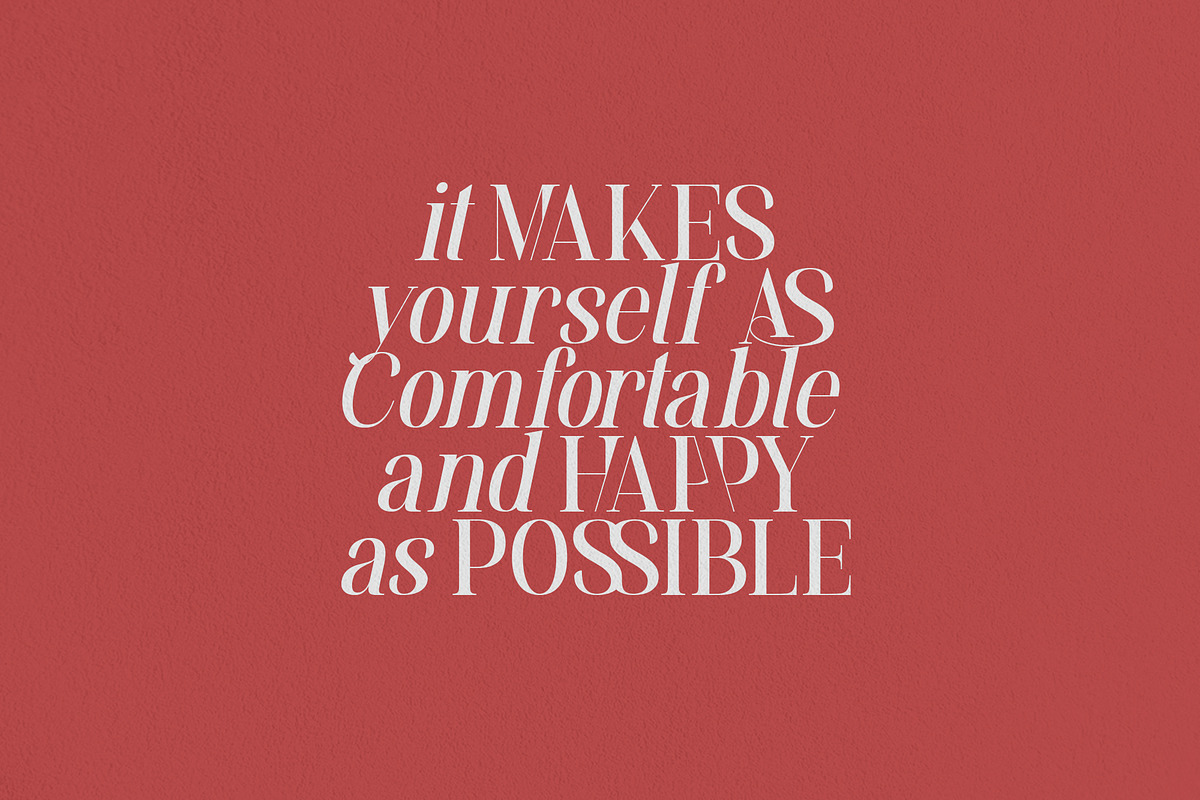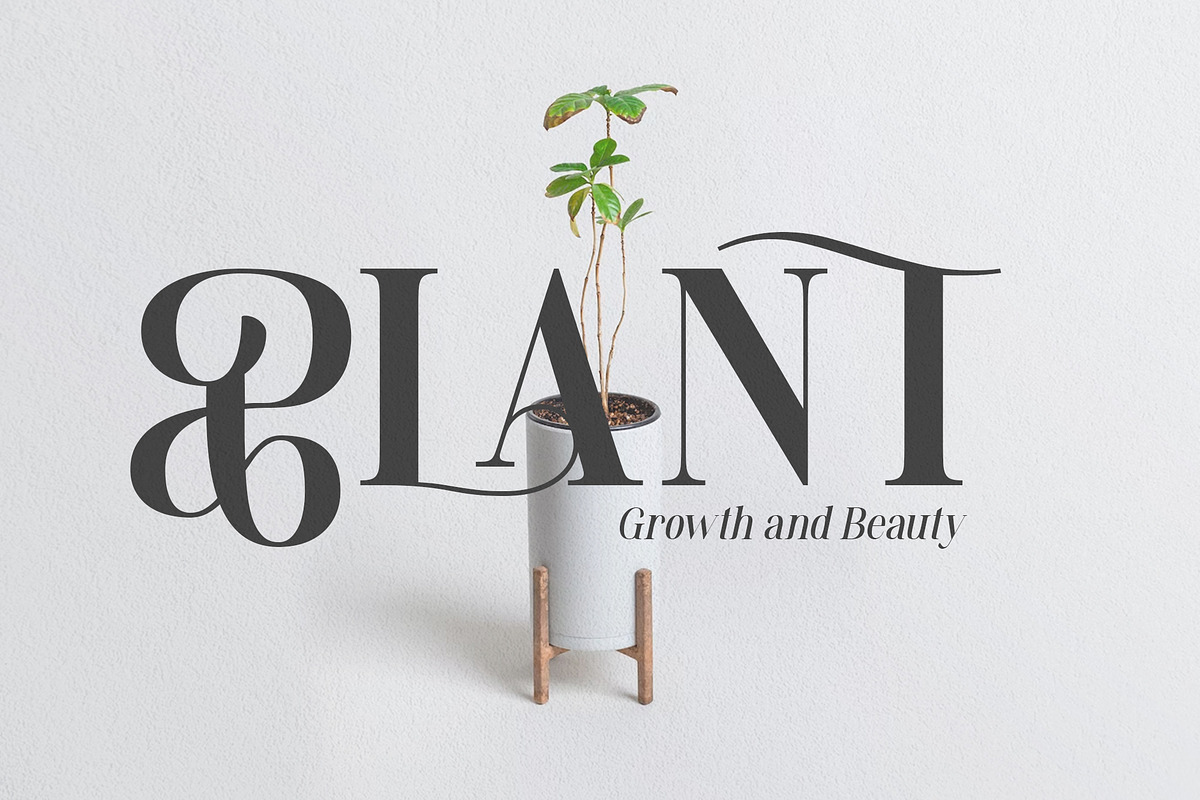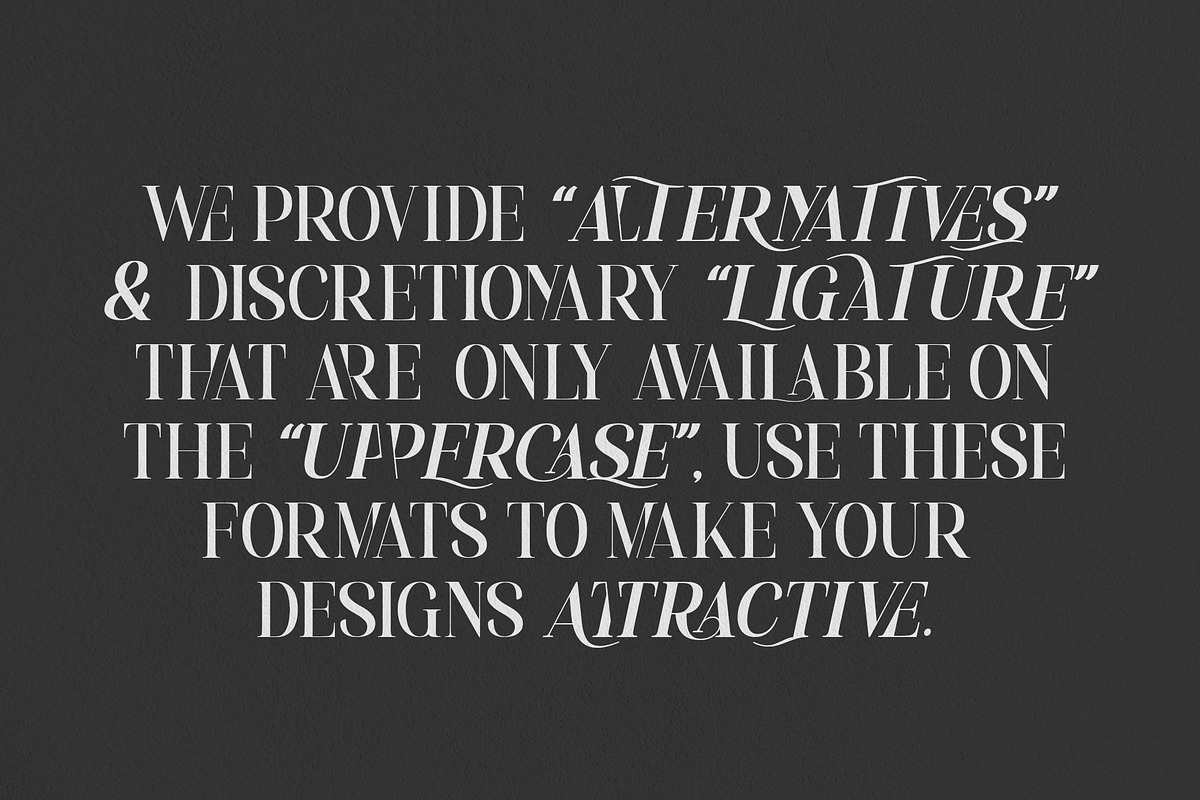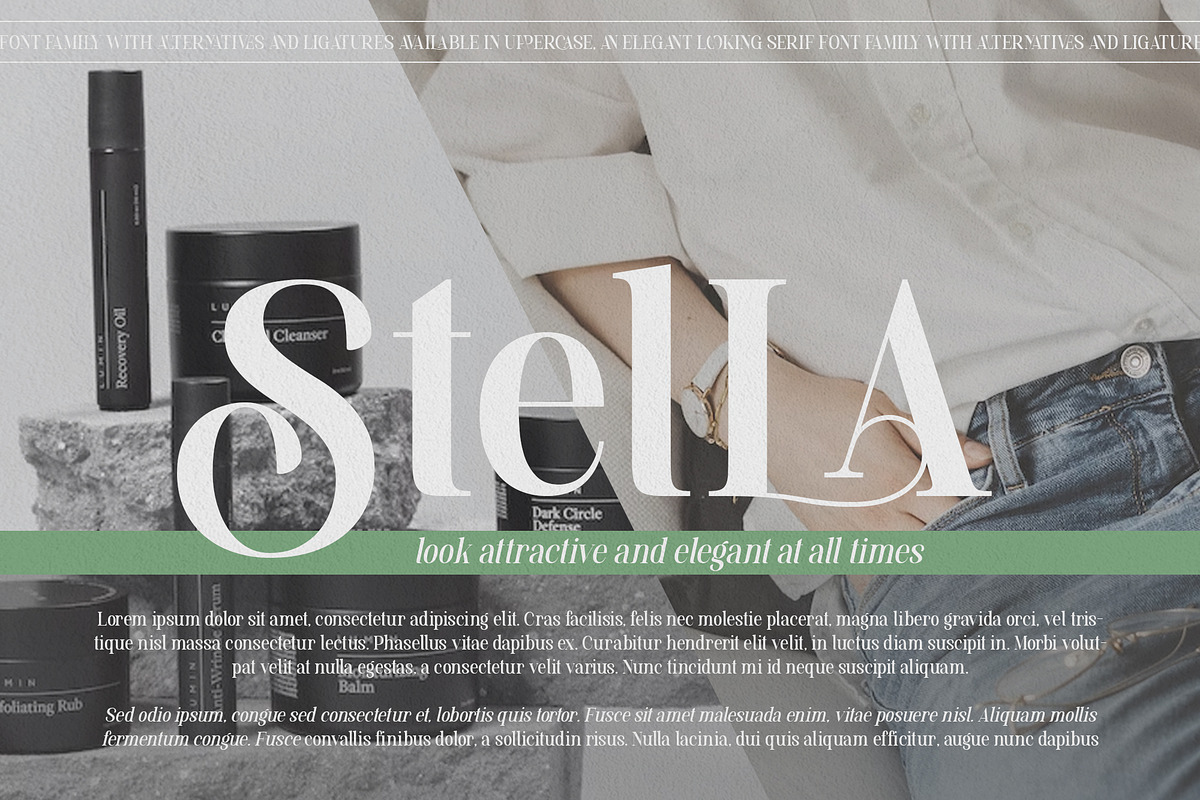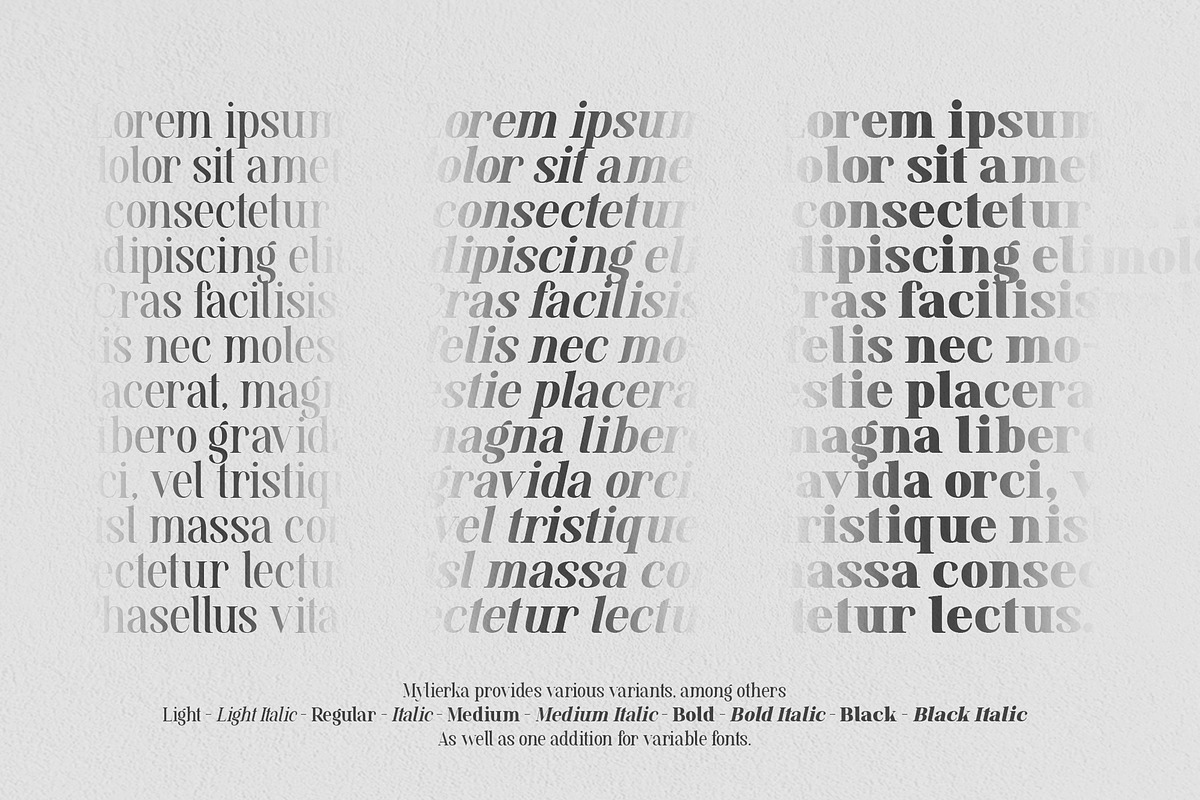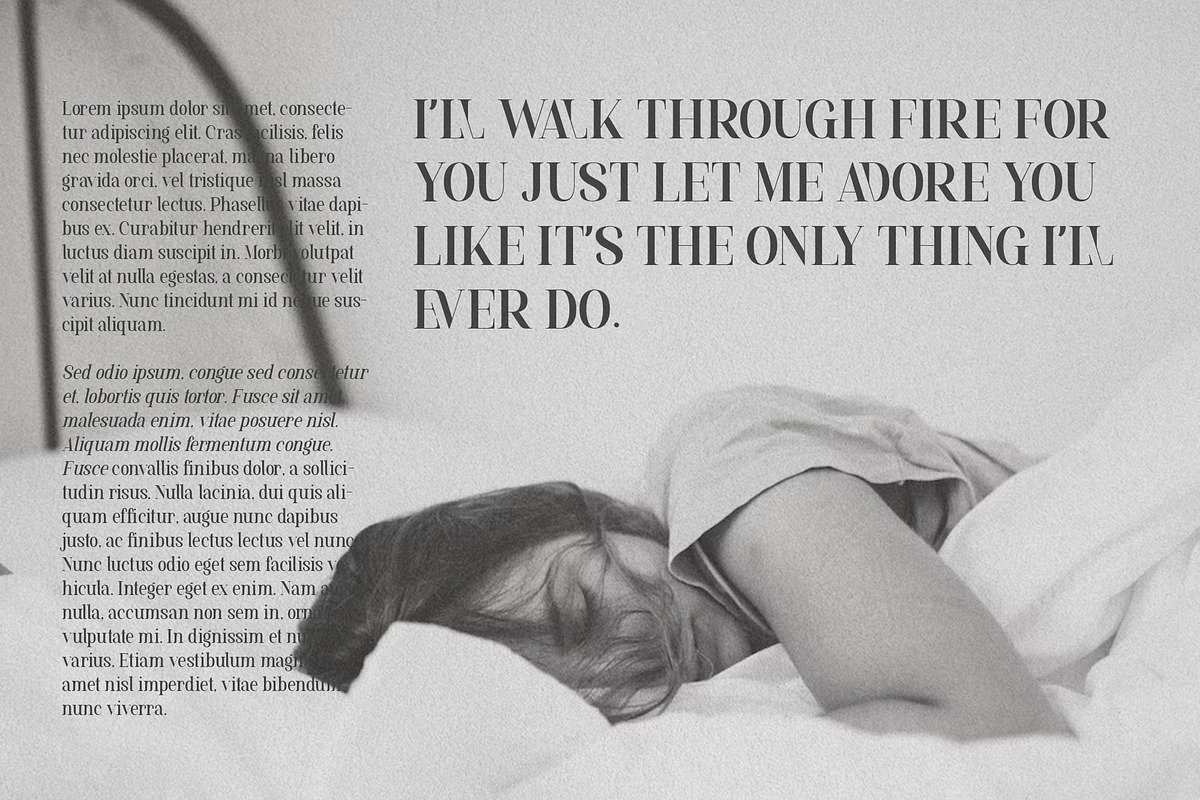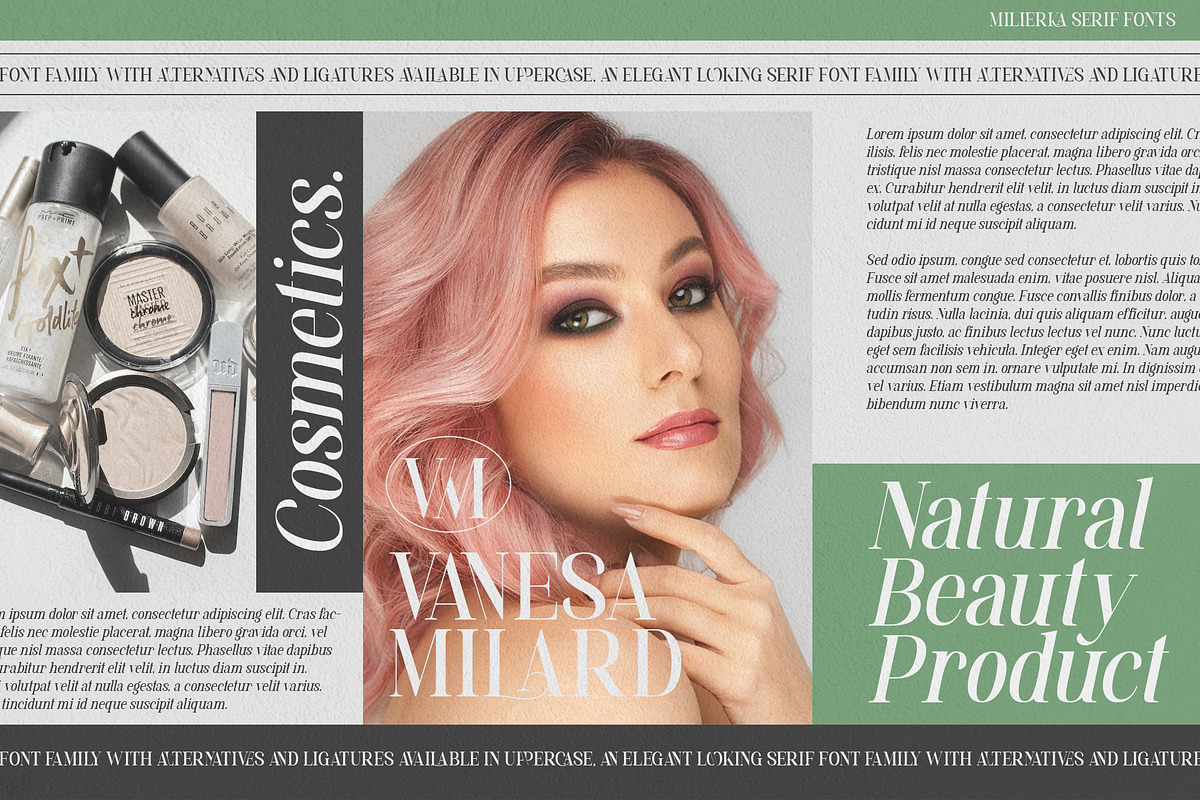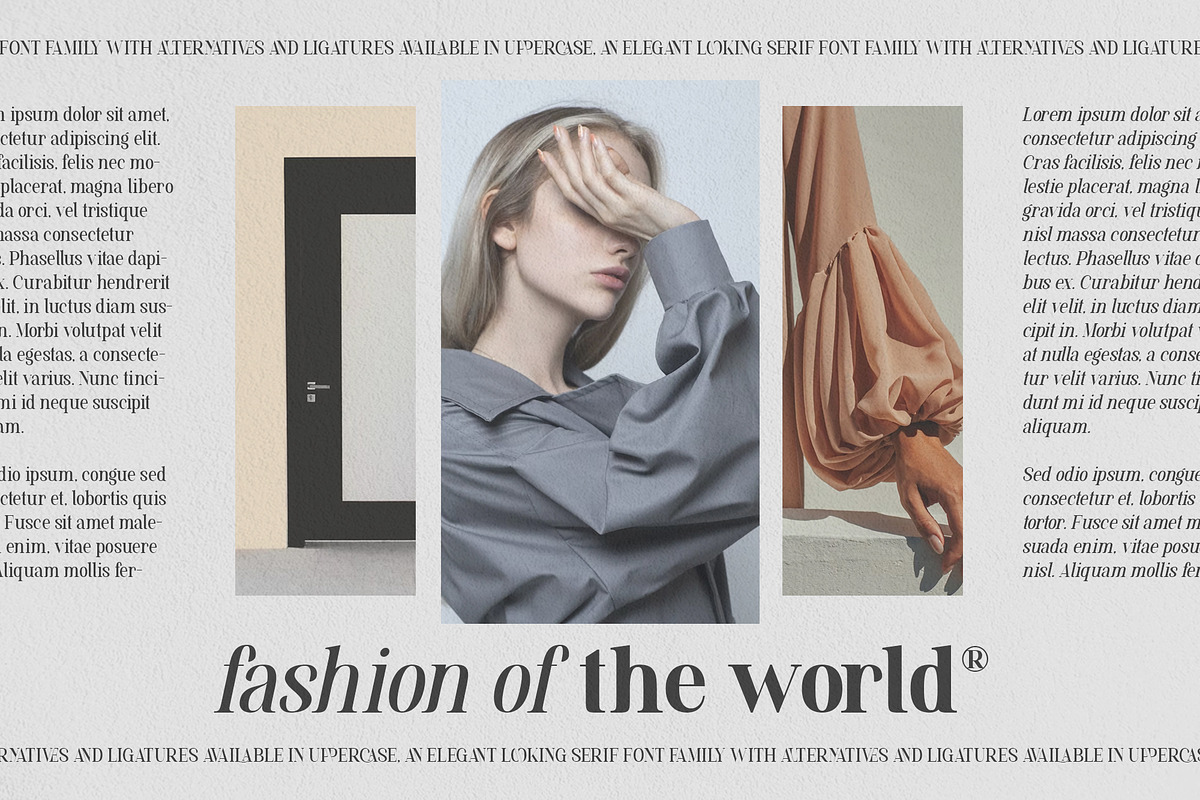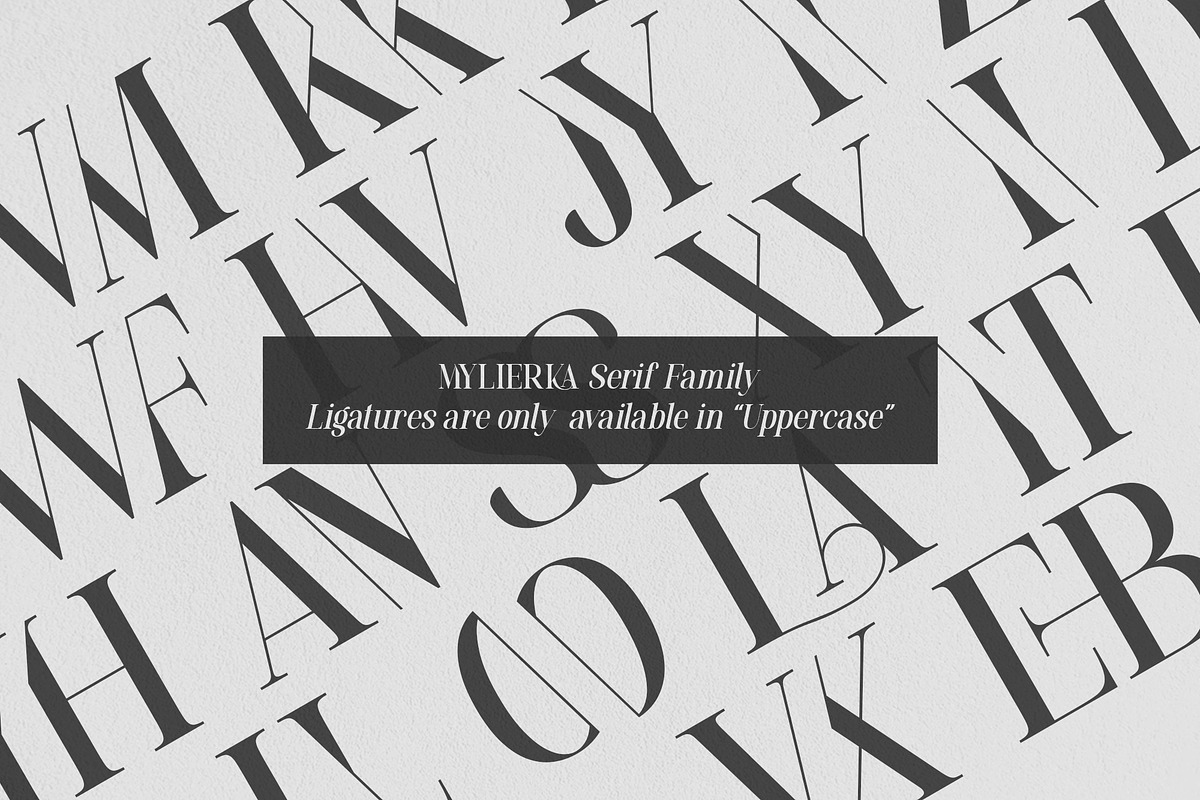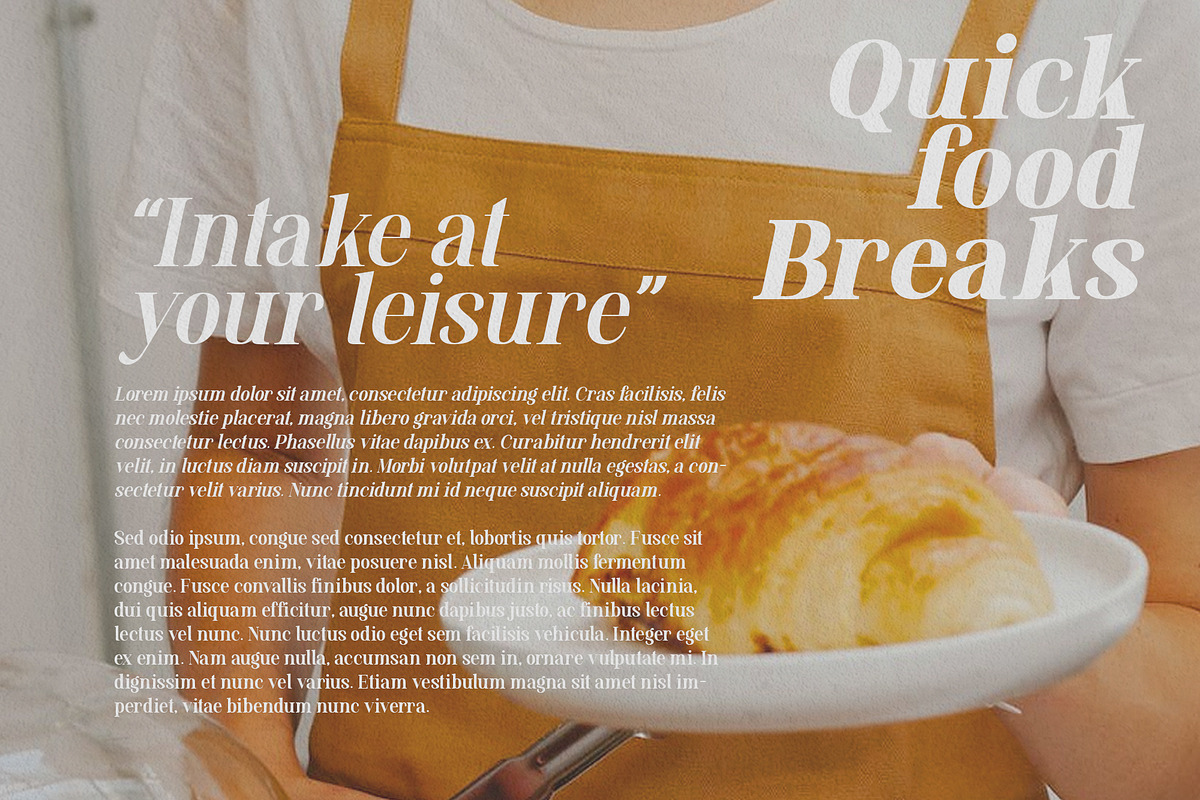
Mylierka - Serif Font (11 Fonts)
Mylierka is a Serif Font Family with a modern style. The soft curves are combined with high-contrast glyphs, conveying both feminine and masculine qualities.
This font consists of 10 Fonts and 1 Variable Font, with unique ligatures and alternatives. Great in layout design for quotes or body copy, best used as a display for headings, logos, branding, magazines, product packaging, and invitations.